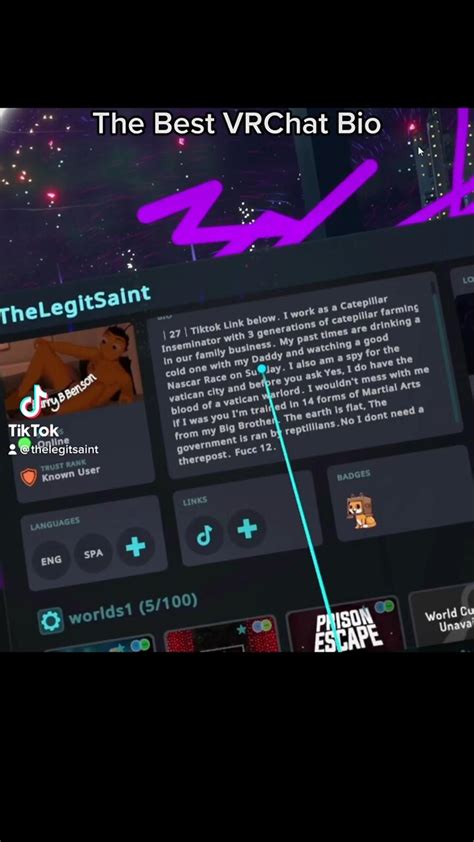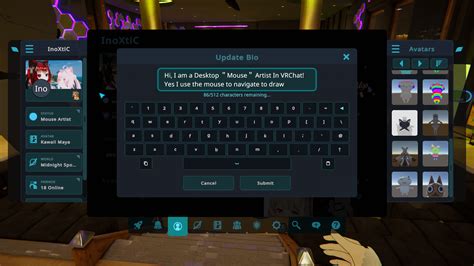
Creating a sincerely immersive experience in the practical social landscape ask care to every detail, including the typography displayed on your custom avatars or in your personal worlds. Finding the perfect baptistery for VRChat is indispensable for instrumentalist who need to express their unique personality or ascertain that textbook label, menus, and sign are clear for everyone in the way. Whether you are evolve a cosy haunt domain or designing a high-tech robotlike avatar, the choice of typeface significantly impacts the overall esthetical and user experience. Composition is not just about letters; it is about define a mood, providing clarity, and assure that your optical plus experience like a natural part of the practical environment.
Understanding Typography in Virtual Spaces
When you start customizing your presence, you quickly realize that standard Unity assets ofttimes miss the genius necessitate for a standout experience. Composition in VR demand to account for depth, lighting, and movement. A font for VRChat should be chosen found on its discernability from assorted distance and slant, as virtual users move constantly and might see your content through different headsets with alter resolution.
Factors for Selecting Text Assets
- Legibility: Choose sans-serif fonts for small UI elements to ensure they remain crisp.
- Theme Eubstance: Match your typography to your macrocosm's motif (e.g., cybernetic, fantasy, or minimalist).
- Performance: Use optimise texture to keep world and avatar file size low.
- Readability: Avoid excessively ornamental scripts unless they are intended but for large, decorative sign.
Technical Implementation of Custom Fonts
Enforce a usance look for your text affect working within the Unity engine, which function as the backbone for all VRChat content. You loosely utilize the TextMeshPro system, which render robust tools for rendering high-quality text.
| Font Type | Better Use Case | Style Vibe |
| Sans-Serif | Menus, User Labels | Clean, Modern |
| Seriph | Titles, Story Lore | Greco-roman, Formal |
| Display | Signage, Neon Signs | Bold, Artistic |
Once you have spell your desired face into Unity, you must convert it into a TextMeshPro face plus. This process return an atlas containing the glyphs, which allows the shader to furnish the text smoothly without pixelation when the user let closer to the target.
Styling and Material Optimization
Erst your elect font is installed, you can occupy your design to the next level by utilize specific material. By employ impost shaders, you can make your text glow, impulse, or yet look to be etch into rock. This versatility is why regain the rightfield font for VRChat is such a major part of the originative procedure for forward-looking world-builders.
Advanced Text Effect
- Glow/Emission: Perfect for cyber-terrorist or neon-themed environs.
- Synopsis: Helps text stand out against busy backgrounds or textured walls.
- Dynamical Size: Allows your text to resize base on the exploiter's length, preserve focusing.
Mastering the art of digital typography within practical world importantly promote the quality of your creations. By selecting a font that balances visual encroachment with technological execution, you ensure that your content is clearly communicated to every visitor. Remember that the best approach involves testing your designing at several scales and illumine conditions to corroborate that your choice remains effective in movement. With these proficiency, your worlds and avatars will reach a polished look that stands out in the grand practical community, ultimately enhancing the way players interact with the surround through the ability of well-rendered textbook.